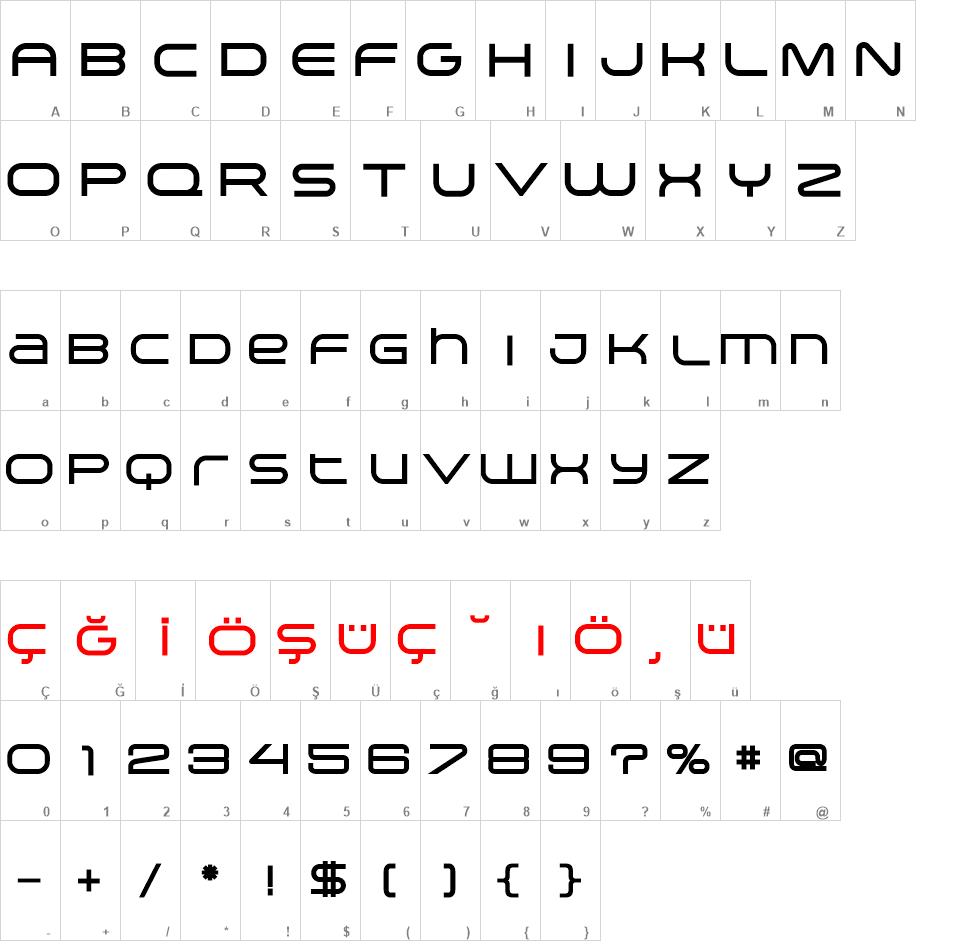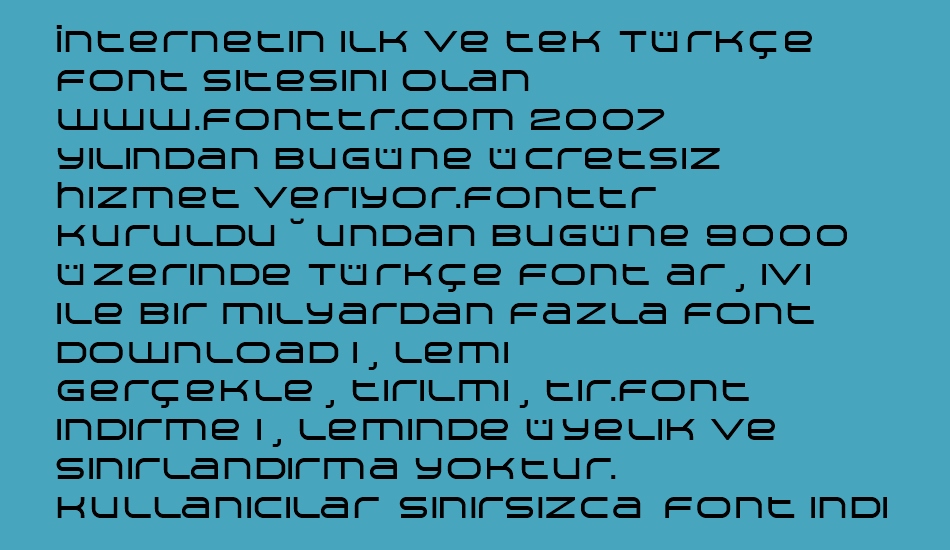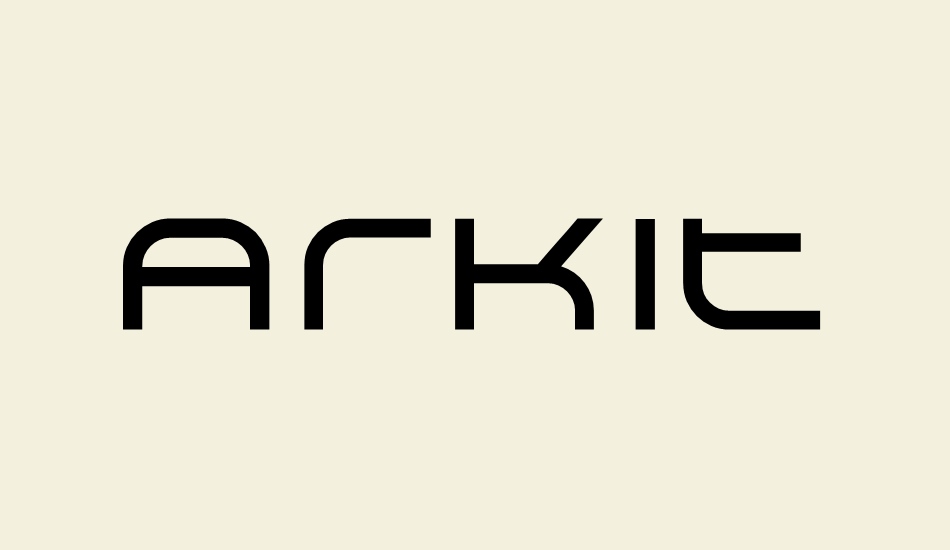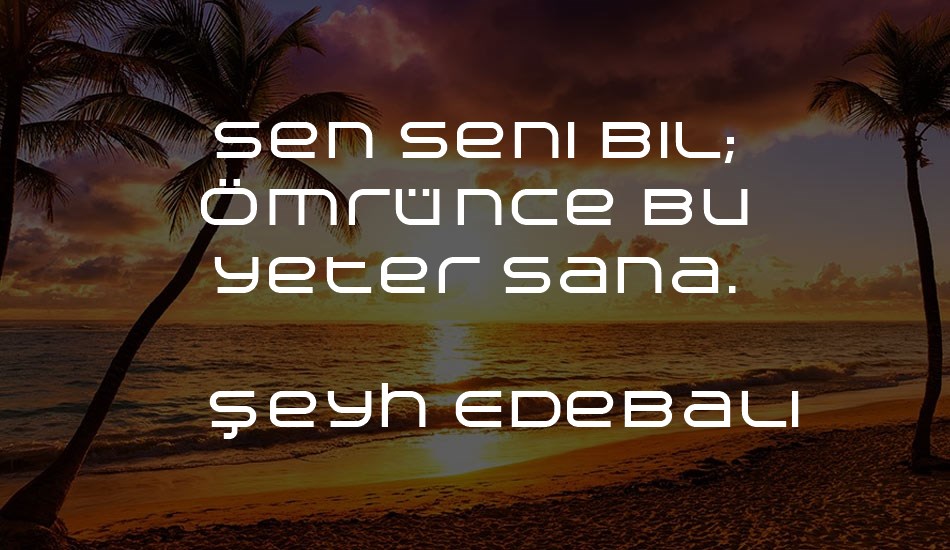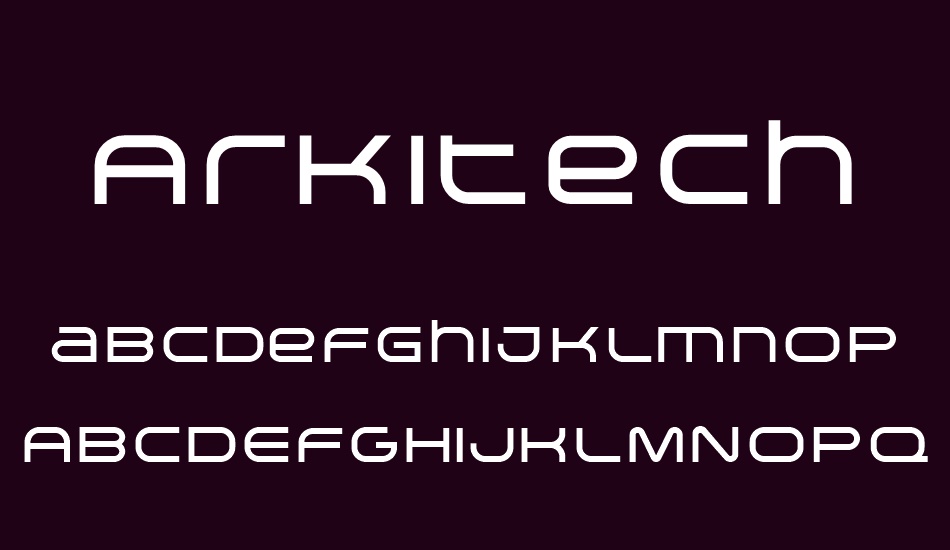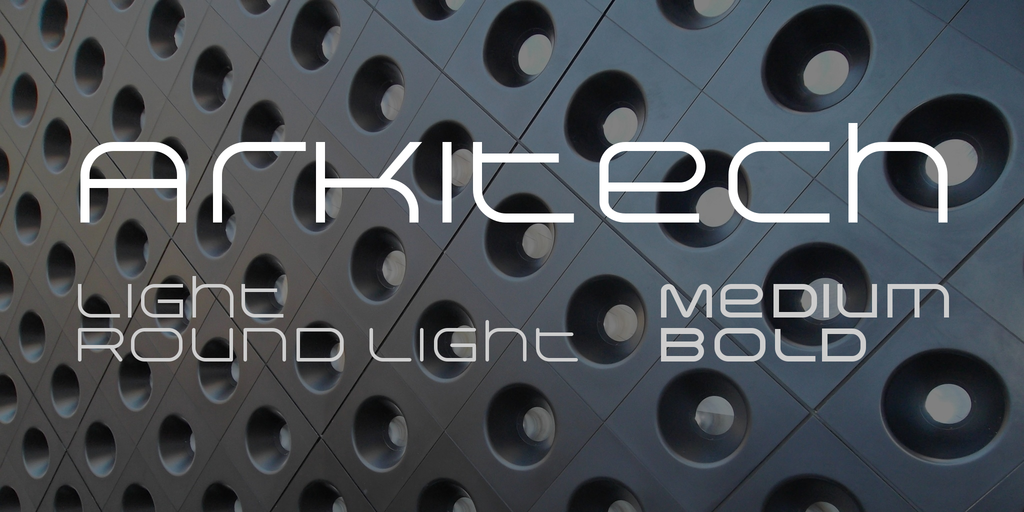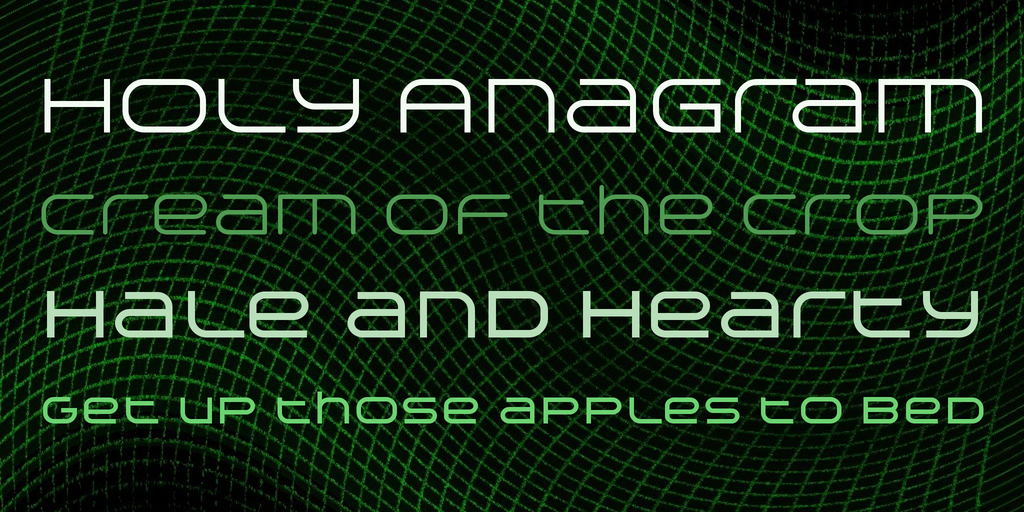
Arkitech Font Ailesi font
Arkitech font
Arkitech Font Ailesi font
A brand new typeface from me: Arkitech Light. Meet another elegant extended sans with certain techno feel. Arkitech and Arkitech Round are free for PERSONAL USE only. If you plan to use it for commercial purposes, please consider donating whatever you think is reasonable to my paypal account: